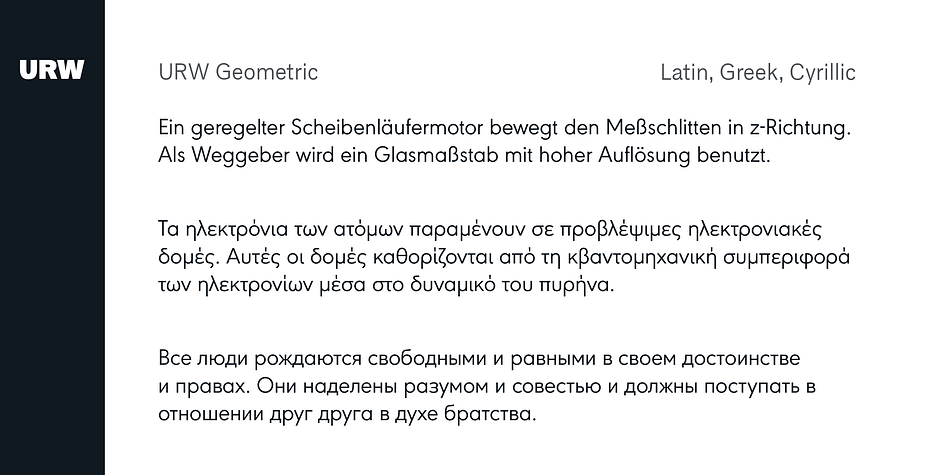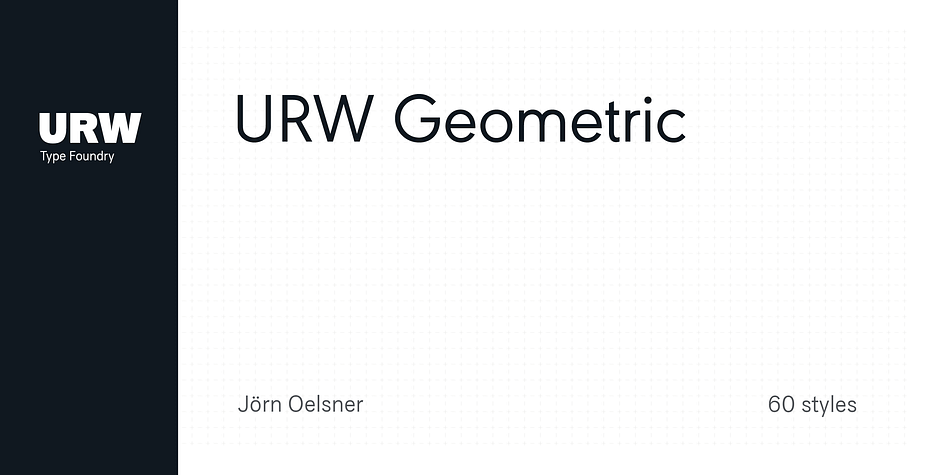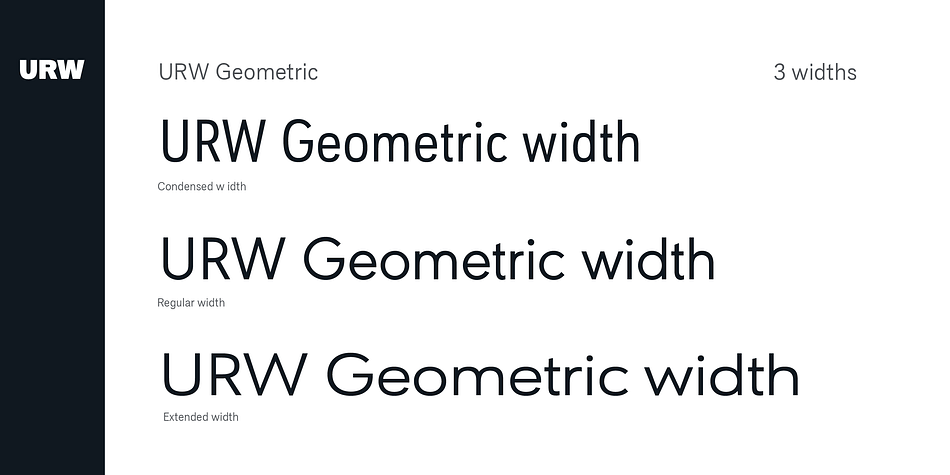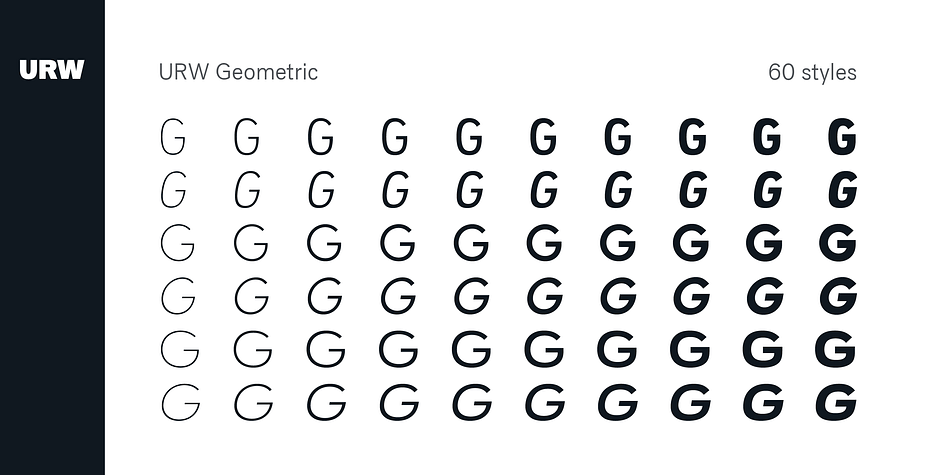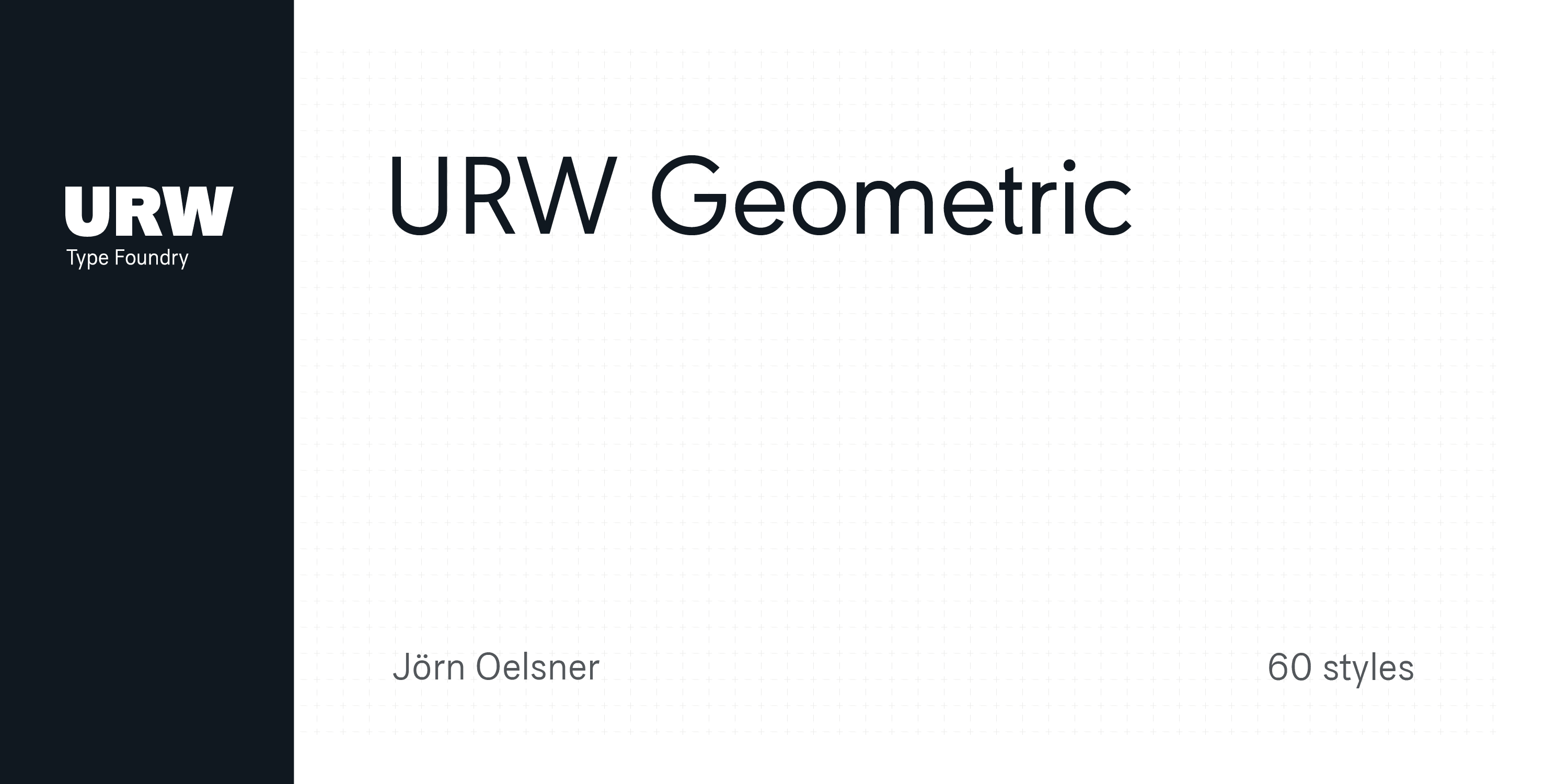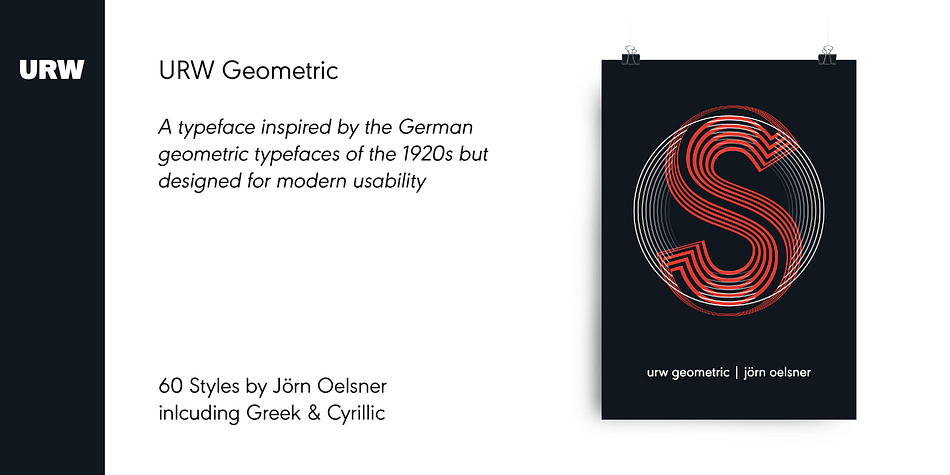
Designed by Jörn Oelsner, URW Geometric is a sans serif font family. This typeface has sixty styles and was published by URW Type Foundry.
URW Geometric is a sans serif typeface inspired by the German geometric typefaces of the 1920s but designed for modern usability. The character shapes have optimized proportions and an improved balance, the x-height is increased, ascenders and descenders are decreased. Special glyphs, which are often designed afterwards for the original geometric typefaces from the 1920s, are perfectly integrated in the URW Geometric. These design characteristics increase the usability and legibility tremendously.
With its 10 weights ranging from Thin to Black, plus 10 additional oblique styles and condensed and expanded widths, it has a great versatility in mind. The extreme light styles shine bright in large sizes, the middle weights are perfect for body copy and the bolder variants for the use of emphasis information or bring a strong impact to headlines and information. The optically balanced styles are designed to work in perfect harmony together. URW Geometric is functional, strong, simple and harmonized in form, and at a glance appears as a modern variant of its predecessors.
Apart from the basic characters the design has an extra focus on the special glyphs. These are designed for today’s needs. For example: the email glyph looks modern and unique, including a perfectly balanced spacing. The number sign, in modern use called “hashtag”, is space saving and optically balanced for body text. Additionally, various extra and alternate glyphs are designed to provide a friendly usability.
Including a wide Latin, Greek, and Cyrillic language support and character sets, URW Geometric is perfectly designed for today’s requirements.